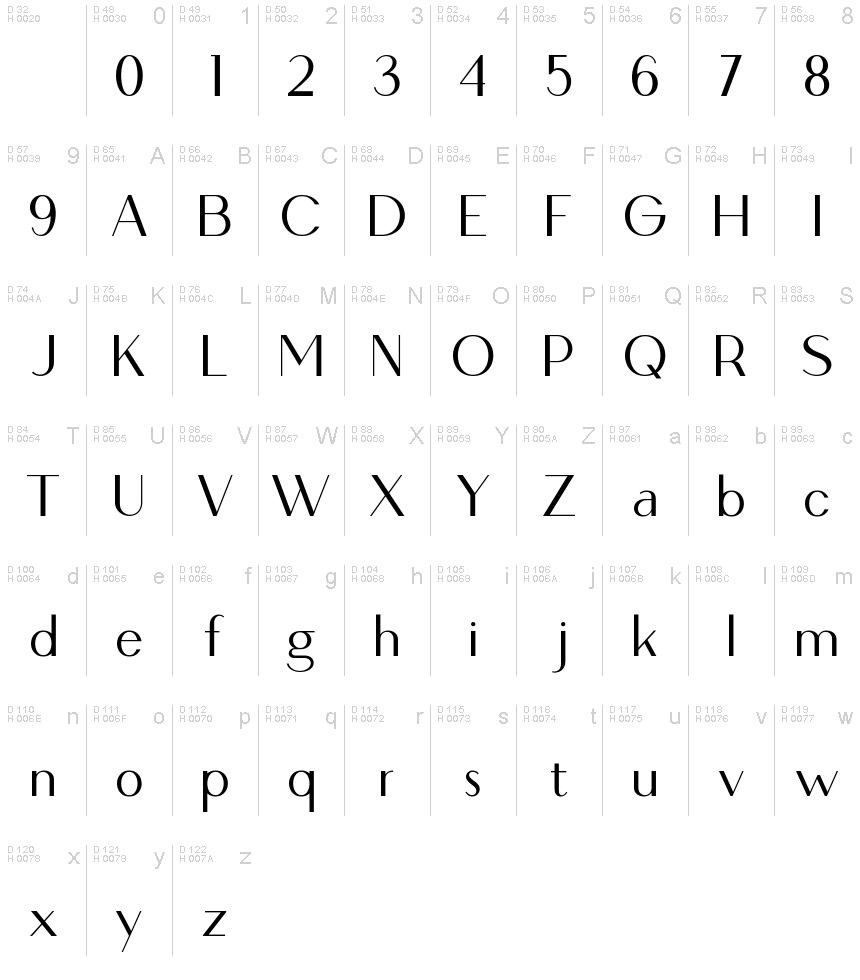
LovingAmbrosDemo
Loving Ambros, crafted by Say Studio, exudes a contemporary charm with its sans serif simplicity. Its clean lines and open forms convey an air of approachability and modernity. The font's characters display a friendly roundness that invites readers in, creating an atmosphere of warmth and casual elegance.
The versatility of Loving Ambros shines in its potential applications. It is perfectly suited for branding projects that require a touch of personability without sacrificing professionalism. Its clarity ensures legibility across various mediums, making it an excellent choice for web design, editorial content, and packaging where a sense of human touch is desired. This font is poised to add a refined yet inviting quality to any visual communication endeavor.